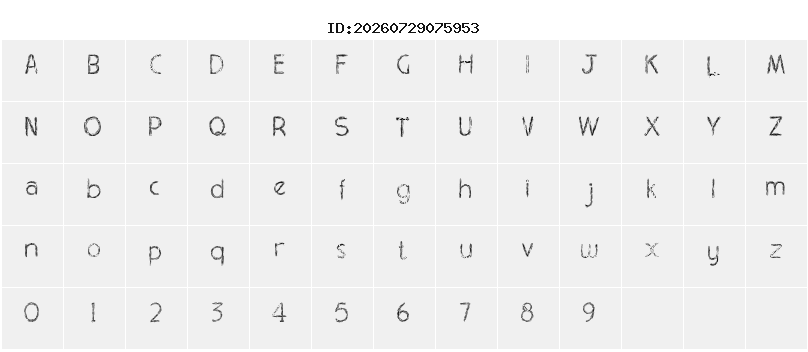
JI-Savate Preview
• Font Name: JI-Savate
• Font ID: Macromedia Fontographer 4.1 Tremble
• Full Font Name: JI-Savate
• Version: Macromedia Fontographer 4.1 2/6/2001
• PostScript Name: JI-Savate
• Character Count: 72
• Designer: JupiterImages
About JI-Savate.ttf
JI-Savate.ttf is a modern, elegant sans-serif font designed for ultimate readability and visual harmony. Perfect for branding, headlines, web design, and print materials.